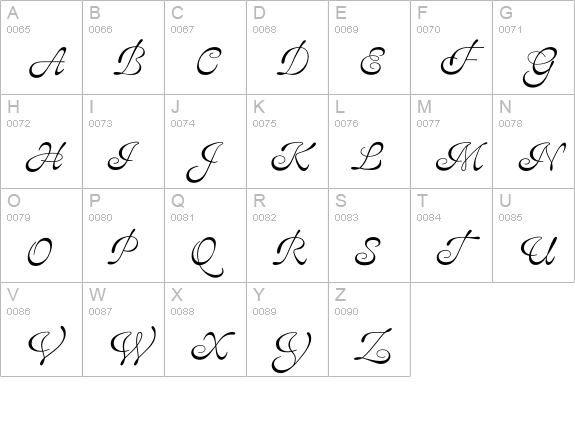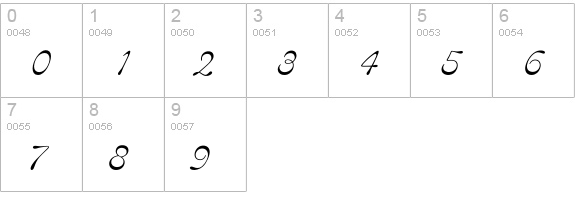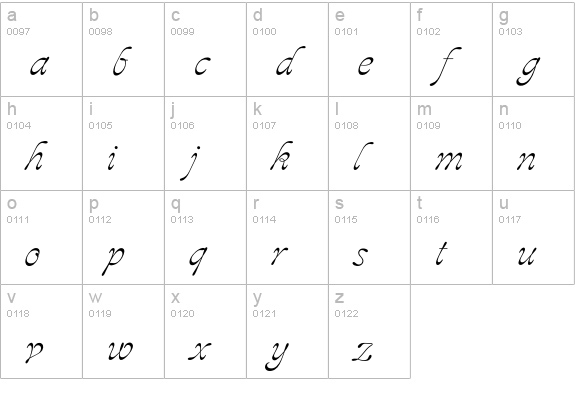
Pollux Font Details
Introducing Pollux font, a sleek and modern typeface that exudes sophistication and elegance. With its clean lines and versatile design, Pollux font is perfect for a wide range of projects, from branding and packaging to editorial and web design. This font features a unique blend of classic and contemporary elements, making it a standout choice for any creative endeavor. The best part? Pollux font is completely free to download at FontsMarket.com. Now you can elevate your designs with this stunning font without breaking the bank. Don't miss out on the opportunity to add Pollux font to your font library today!